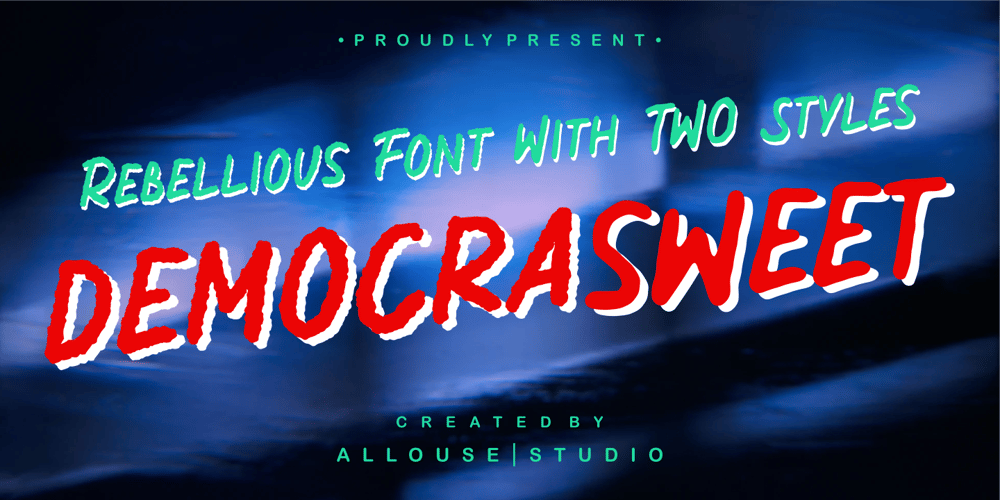
Democrasweet Font Family was designed by Fachrizal Yusuf and published by Allouse Studio. Democrasweet contains 2 styles and family package options. Proudly Present, Democrasweet a Rebellious Handwritten font With Two Styles, Rough and Smooth.Democraswwet come with 6 ampersand styles each, underline styles and Multilingual-Support to fulfill your need.We highly recommend using a program that supports OpenType features and Glyphs panels like many of Adobe apps and Corel Draw, so you can see and access all Glyph variations.Democrasweet is perfect for any tittle, logo, product packaging, branding project, megazine, social media, wedding, or just used to express words above the background.Enjoy the font, feel free to comment or feedback, send me PM or email. Thank You!